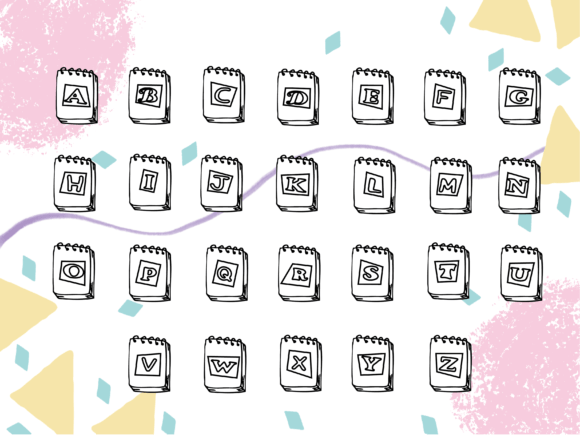
Introduction to Notepad Doodles Font
Notepad Doodles is a fun and interesting decorative font.
Its friendly vibe is perfect for creating lovely designs, ranging from stickers to posters, planners, and more .